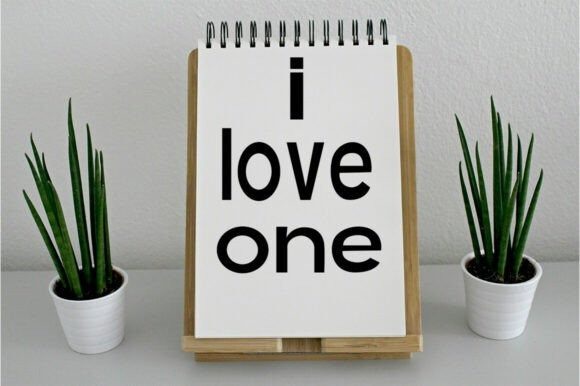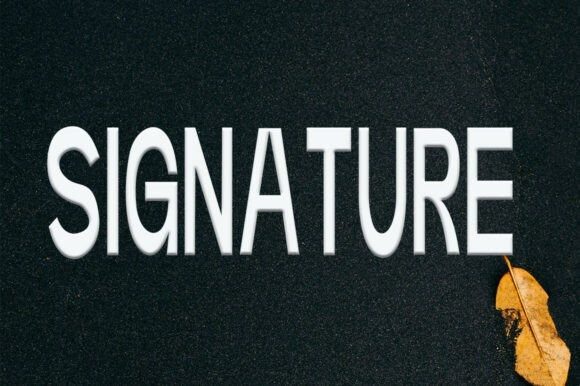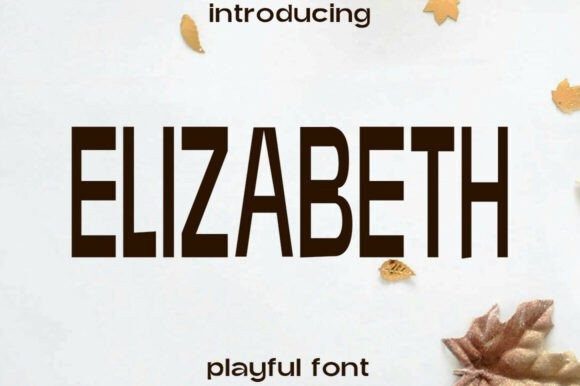
Elizabeth Type
Elizabeth Type is a clean, geometric, and playful sans-serif font that radiates charm and modern simplicity.With its tall letterforms and sharp lines, it’s great for titles, posters, children’s content, and creative branding. Whether you’re designing a fun invitation or bold signage, Elizabeth brings a vibrant and approachable personality to your work.